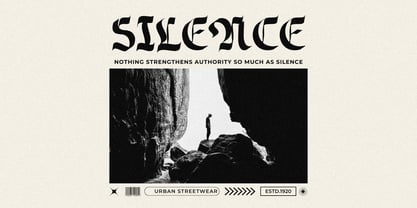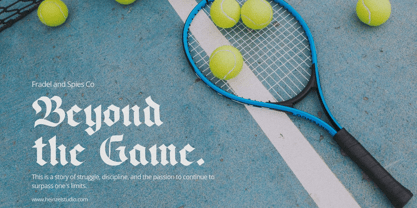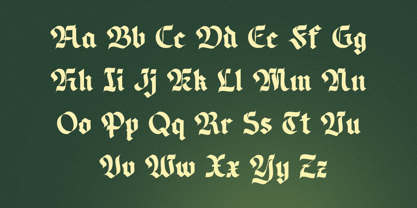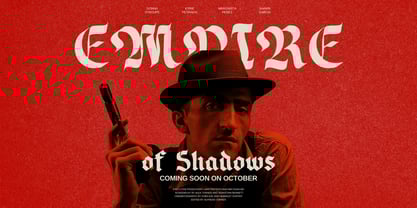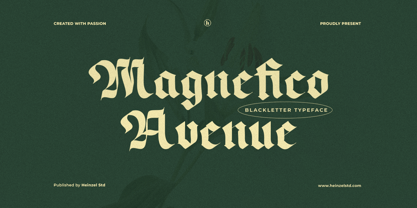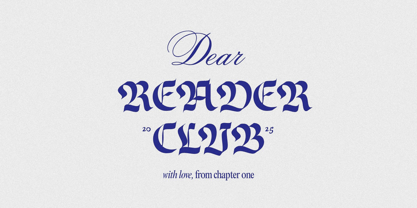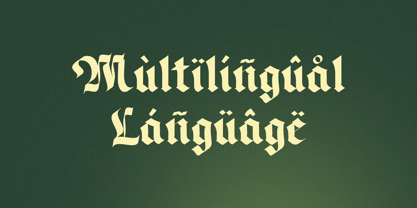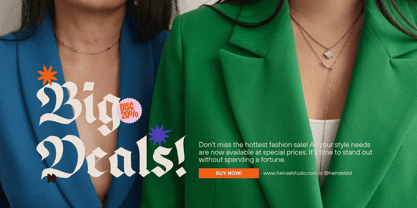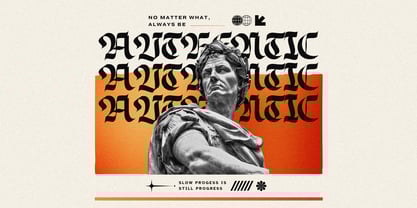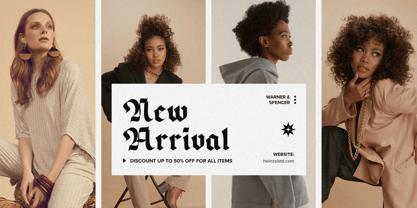
Magnefico Avenue
by Heinzel Std
The Magnefico Avenue Font Family was designed by Nofi Sofyan Hadi and published by Heinzel Std. Magnefico Avenue contains 1 styles.
Introducing Magnefico, a bold and powerful blackletter typeface that brings a sense of classic elegance and gothic strength to your design projects. Crafted with precision and passion, Magnefico is inspired by traditional medieval calligraphy, yet refined for modern use. Its sharp serifs, dramatic strokes, and ornate details make it perfect for logos, headlines, posters, branding, packaging, and more.
Whether you're designing for metal bands, vintage labels, or editorial layouts, Magnefico adds an authoritative and sophisticated flair. With its timeless blackletter character, this typeface evokes heritage, legacy, and artistry—ideal for creators seeking an impactful, old-world charm with a contemporary edge.